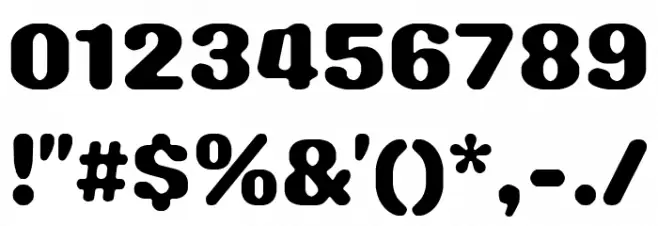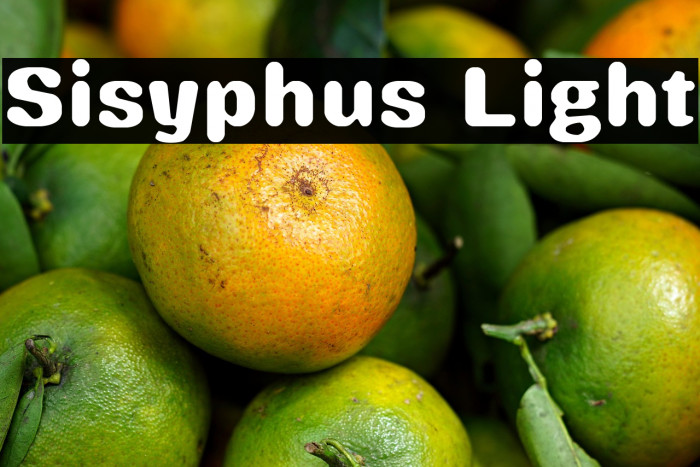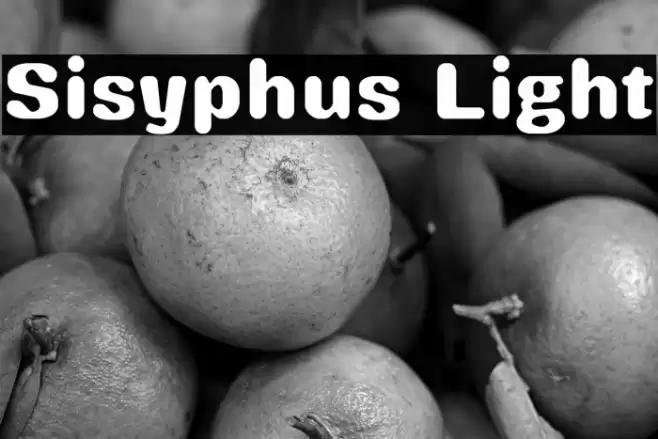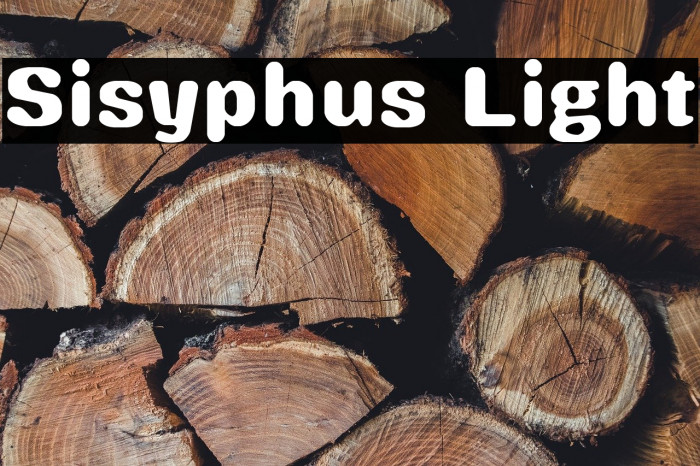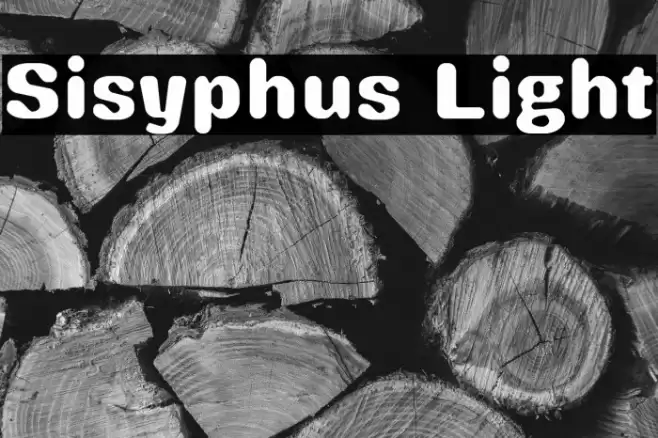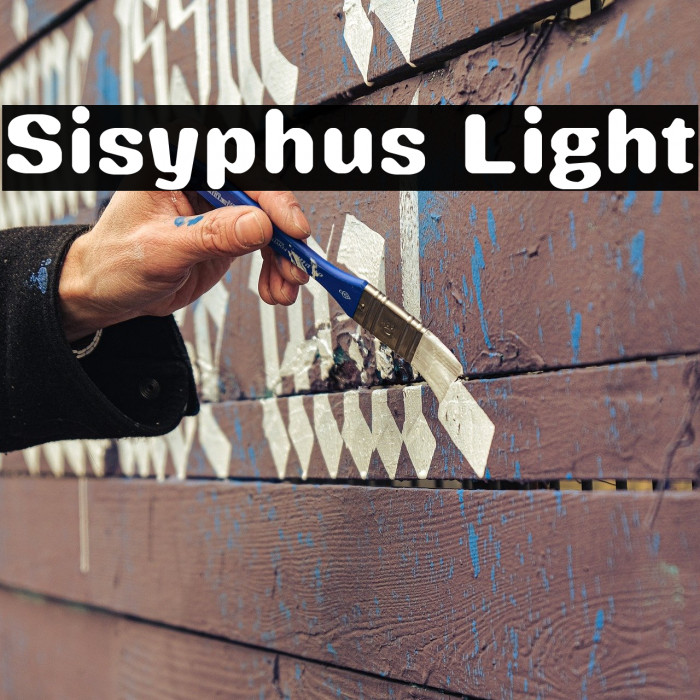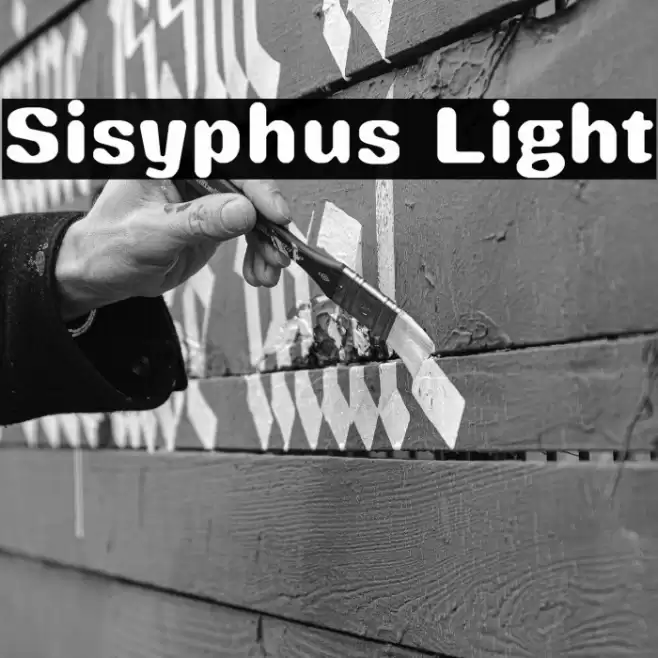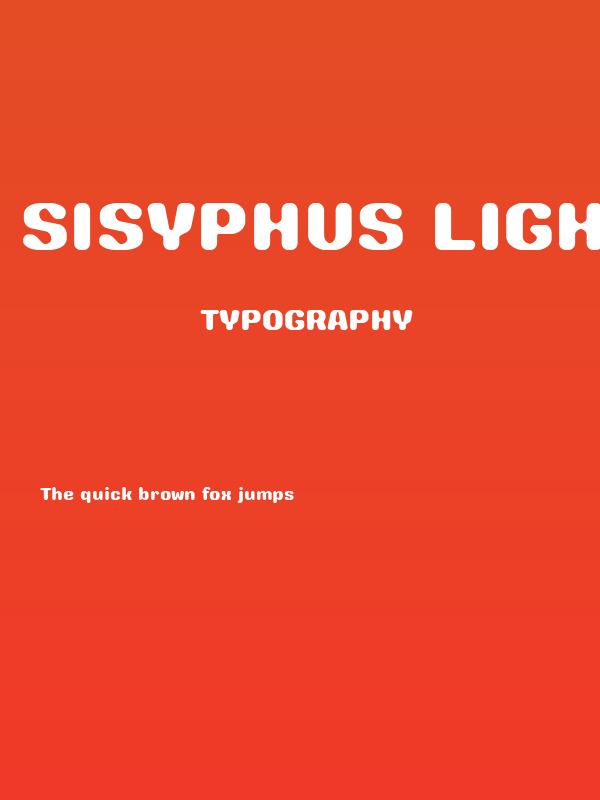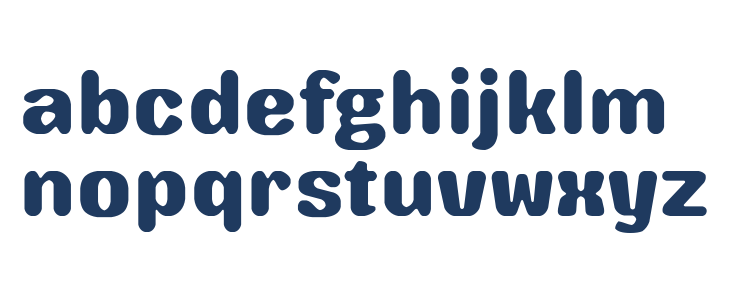
Sisyphus Light Font
Sisyphus Light Description
This font features bold, rounded characters with a playful and approachable style. The letters are uniformly thick, giving a strong and confident appearance. The rounded edges soften the overall look, making it friendly and inviting. The characters are well-spaced, ensuring readability while maintaining a cohesive visual flow. The numbers and special characters follow the same design principles, providing consistency across all glyphs. This font is versatile, suitable for a variety of design projects that require a bold yet approachable aesthetic.
| Proposed Projects | Ideal for branding, packaging, children's books, and playful advertising campaigns. |